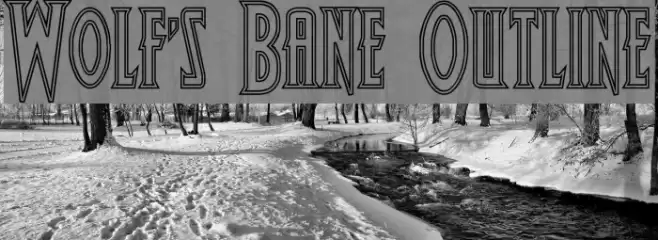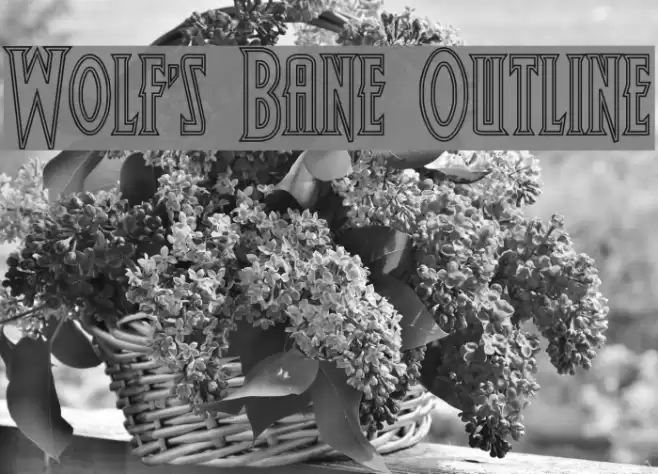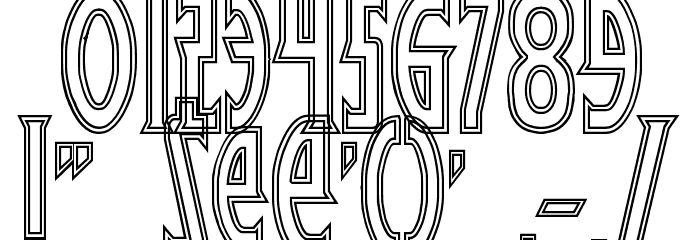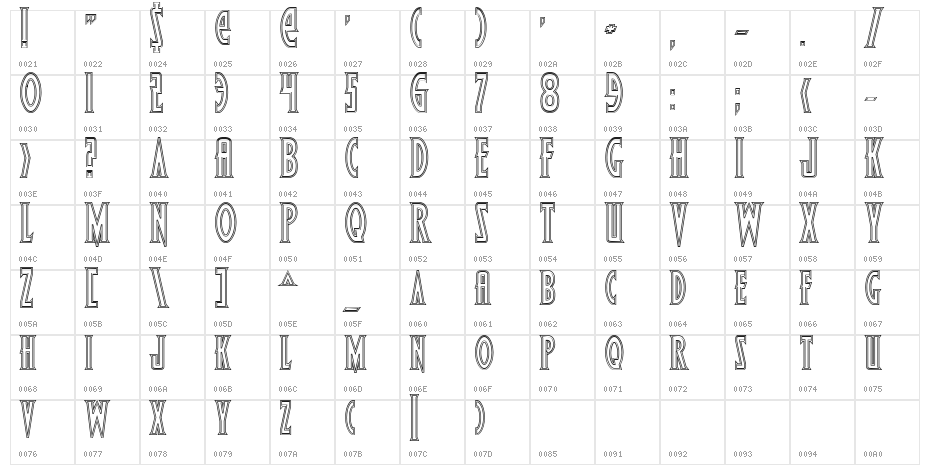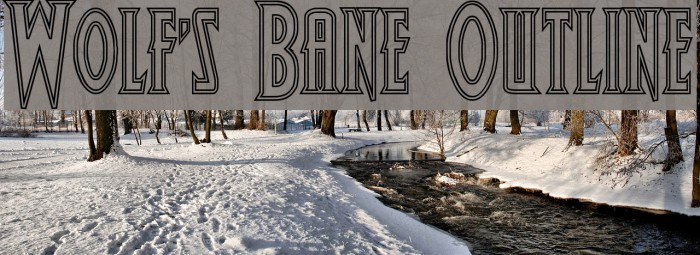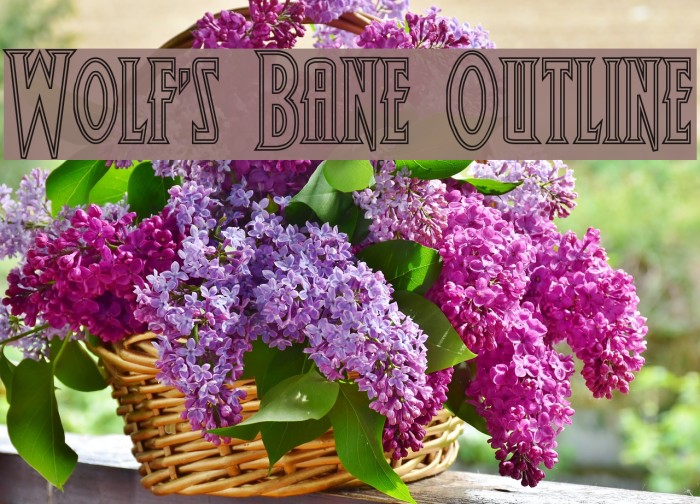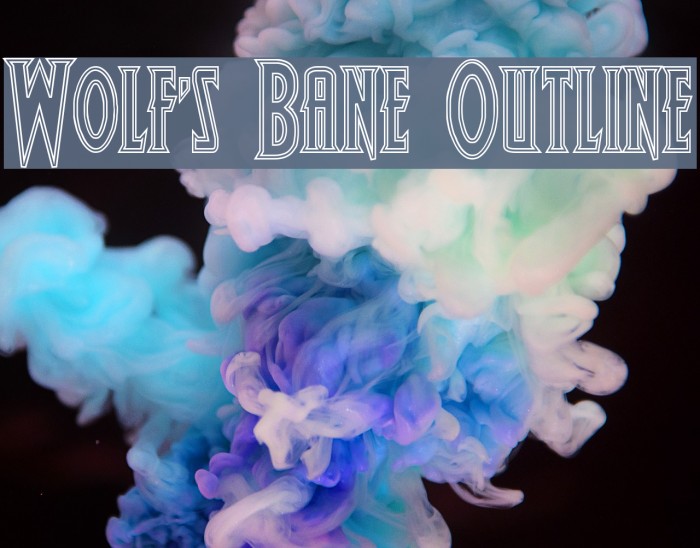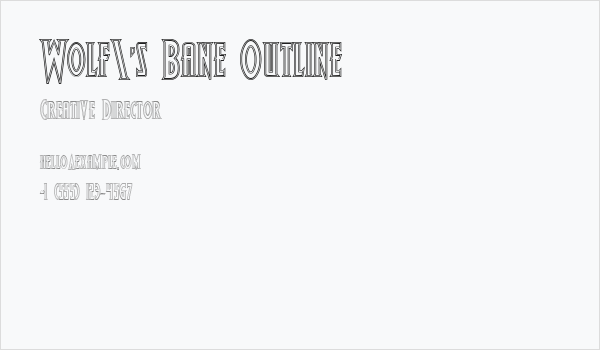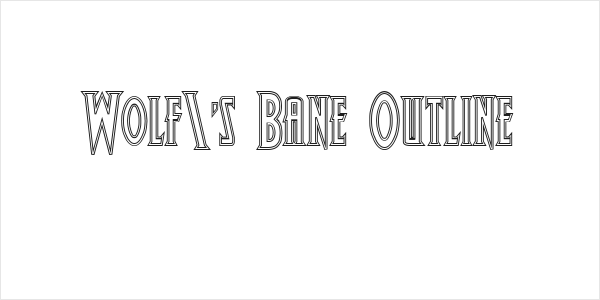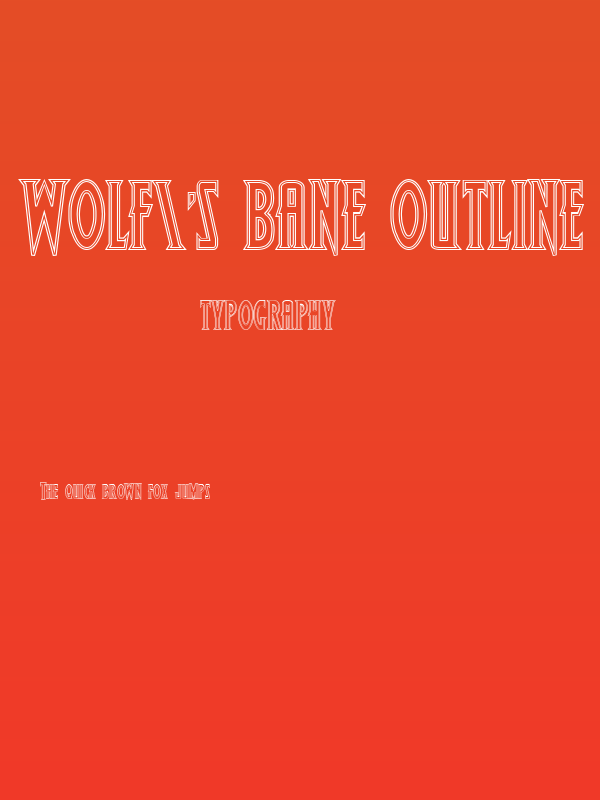
Wolf's Bane Outline Font
Wolf's Bane Outline Description
This font features a bold, outlined style with a strong presence. The characters are tall and narrow, with sharp, angular serifs that give it a distinctive, edgy look. The outline effect adds depth and dimension, making it ideal for eye-catching designs. The uppercase letters are particularly striking, with a uniform height that creates a cohesive appearance. The numbers and special characters maintain the same bold outline, ensuring consistency across all elements. This font is perfect for projects that require a dramatic and impactful typeface.
A bold, outlined font with sharp, angular serifs and a dramatic presence from Typewriter fonts.
- Proposed Projects: Ideal for posters, logos, headlines, and any design requiring a bold statement.